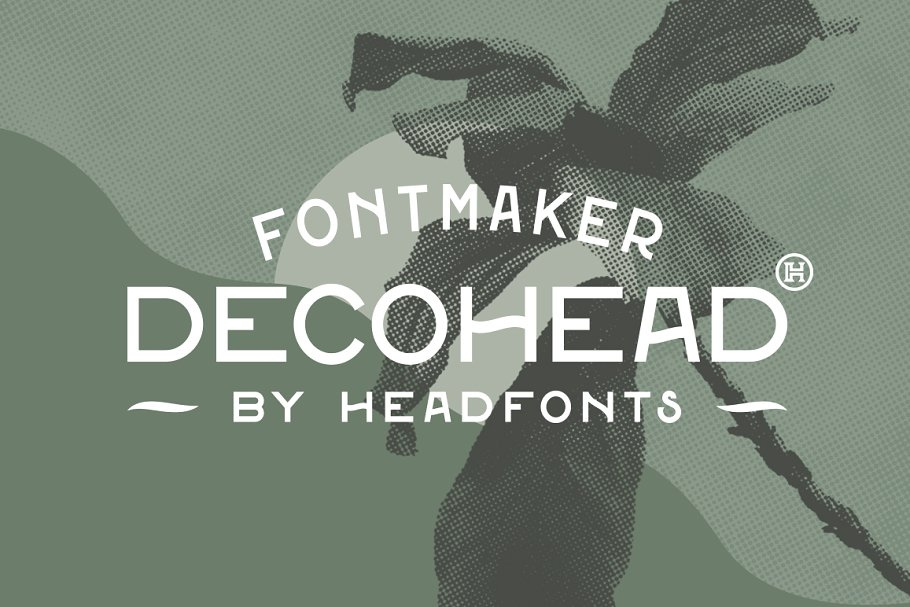
Decohead Font
This Art Deco typeface is perfect for luxury hotels, vintage branding, jazz clubs, retro packaging, 1920s themed events, cocktail bars, fashion boutiques, elegant signage, and sophisticated period design projects.
What makes this font exciting is its Art Deco elegance combined with vintage glamour, offering designers a sophisticated typeface that captures the golden age of design while delivering timeless luxury and Jazz Age sophistication.
The Decohead font family includes light, regular, medium, bold, ornate, and vintage variations, providing complete Art Deco design solutions for creating elegant period visual identities.
Whether you're developing luxury vintage brands or crafting sophisticated historical experiences, Decohead Font Free Download brings exceptional Art Deco atmosphere and period authenticity to every application. This glamorous typeface combines 1920s typography traditions with contemporary luxury design, creating letterforms that evoke elegance and sophistication simultaneously. The font's Art Deco construction and glamour-ready details make it perfect for brands seeking immediate vintage recognition.
Decohead Font features carefully crafted Art Deco styling with authentic period character that conveys genuine vintage expertise. Each character has been designed to reflect the geometric elegance of the Jazz Age, with sophisticated proportions and ornamental elements that enhance the luxurious aesthetic. The font's vintage qualities make it particularly effective for hospitality brands and luxury applications.
Professional designers choose Decohead Font for projects requiring authentic Art Deco credibility and vintage atmosphere. Its period heritage makes it exceptionally well-suited for luxury hotels, cocktail lounges, and sophisticated lifestyle brands. The font's versatile vintage variations allow designers to control the Art Deco intensity, from subtle period elegance to full Jazz Age celebration.
The complete Decohead Font package offers extensive Art Deco ornaments and period decorative elements that enhance the vintage aesthetic. Advanced geometric features allow designers to create complex Art Deco effects with multiple 1920s-inspired options. This comprehensive vintage toolkit ensures designers have everything needed to create authentic period communications that celebrate the enduring elegance of Art Deco design and Jazz Age sophistication.